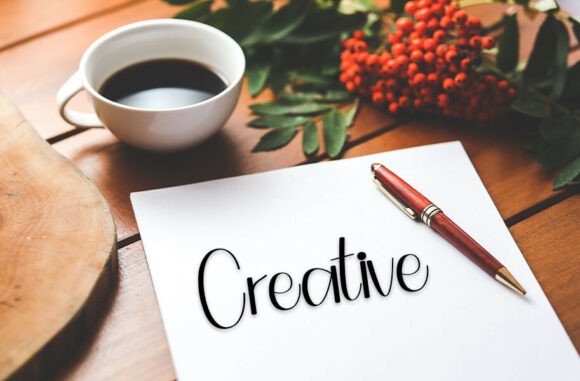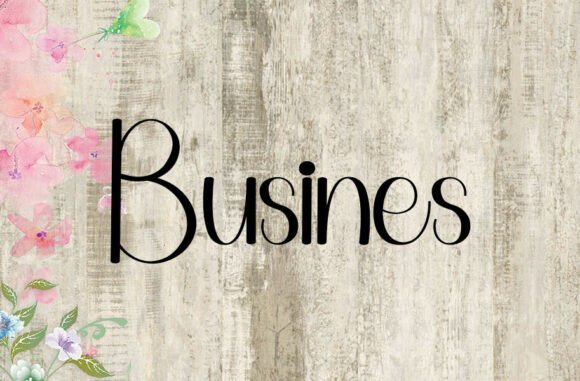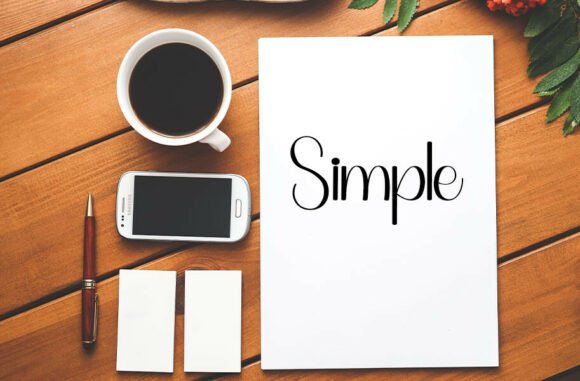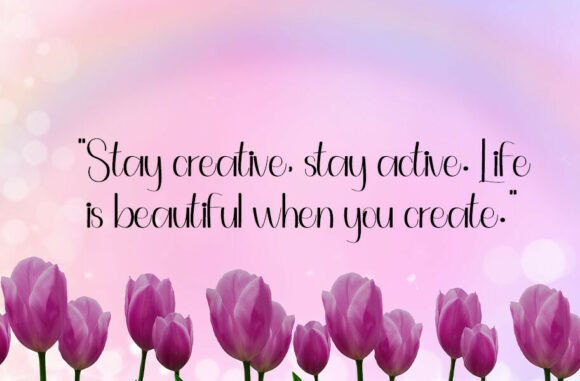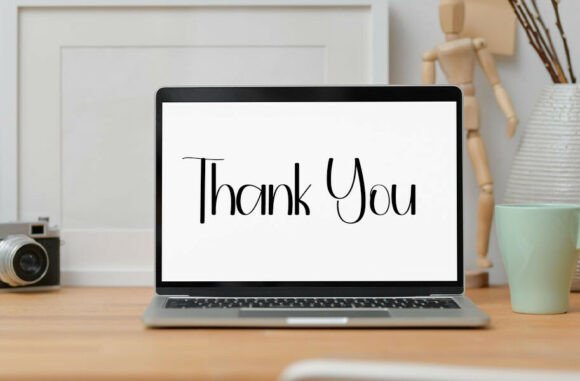
The Perfect Font for a Whimsical Touch
Have you ever been working on a design project, pouring over endless font options, and then – suddenly – you stumble upon the one that makes everything fall into place? For many designers, this moment is pure magic. It’s the moment when a project goes from ‘just okay’ to truly special. And for us, that moment came when we discovered the Babyday Font.
This sweet and cursive handwritten font is a game-changer for any design project. Whether you’re creating a logo, wedding invitation, or marketing campaign, the Babyday Font adds a touch of whimsy and romance that’s hard to resist. Its gentle curves and playful feel make it the perfect choice for designers looking to add a little extra something to their work.
Babyday Font Key Features
- Font Family: Babyday Font is a unique, hand-drawn sans-serif font family designed specifically for children’s content.
- Unique Characteristics: Babyday Font features rounded edges, subtle curves, and a playful feel, making it perfect for children’s books, nursery decor, and educational materials.
Babyday Font Review
Overall, I found the Babyday Font to be a unique and creative choice for a nursery or children’s theme project. It’s playful and fun, making it perfect for a kids’ app, website, or product packaging.
Here’s what I like about it:
- ✨ The rounded edges and childlike features give it a friendly and approachable feel.
- ✨ The font is highly legible, even at smaller font sizes, making it ideal for digital use.
- ✨ The font family includes multiple weights and styles, providing a range of options for designers.
However, there are some limitations:
- ⚠️ The font may be too playful or childish for some projects, such as corporate or formal websites.
- ⚠️ Some characters, like the ‘a’ and ‘g’, have a slightly unusual shape, which may take some getting used to.
- ⚠️ The font doesn’t include Cyrillic or other non-Latin character sets, which may limit its use in global projects.
Overall, I’d recommend the Babyday Font for projects that require a fun and approachable feel. While it may not be suitable for all projects, it’s a great choice for designers looking to add a touch of whimsy to their work.
Tips for Getting the Most Out of the Babyday Font
Use the Babyday font for titles, headings, and short paragraphs to add a touch of whimsy to your design.
Combine the Babyday font with other fonts to create a unique and eye-catching look.
The Babyday font is perfect for:
- Baby and children’s products
- Children’s books and educational materials
- Family and parenting websites
- Gift and party invitations
Alternatives to Babyday Font
Babyday Font is a unique, handwritten font used for creating a warm and inviting atmosphere. However, it may not be suitable for all design projects. Here are some alternatives:
Great Vibes is a modern, cursive script font designed by Laura Worthington. It’s perfect for creating a relaxed, casual atmosphere and is ideal for use in invitations, social media, and branding materials. Unlike Babyday Font, Great Vibes is more versatile and can be used for a wide range of projects, from weddings to personal branding.
Carolyna Pro is a elegant, handwritten font designed by Hoftype. It’s ideal for use in high-end branding materials, such as luxury packaging and invitations. Unlike Babyday Font, Carolyna Pro has a more sophisticated and refined look, making it perfect for projects that require a touch of elegance.